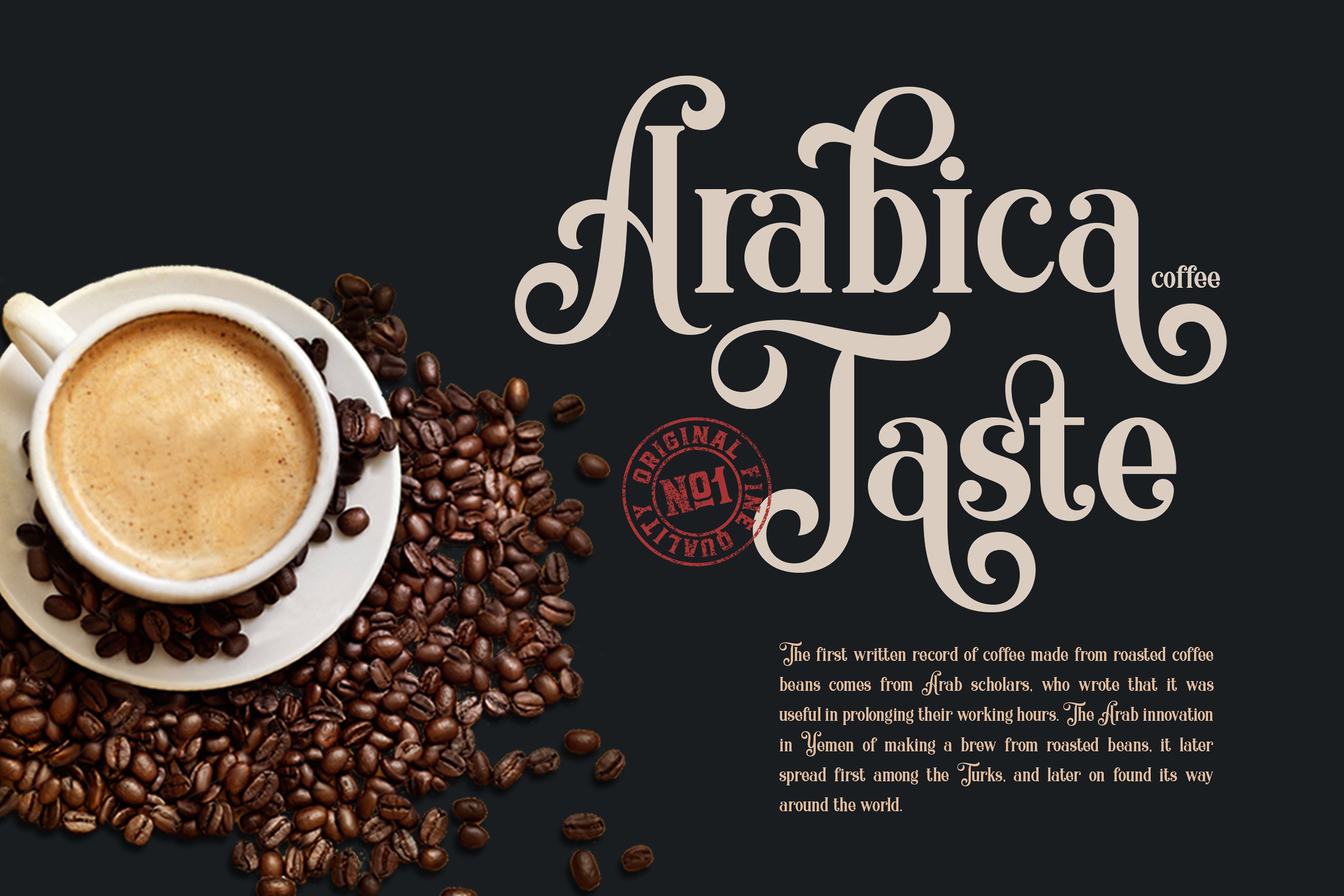
Quiska Unique
Quiska Unique Font
Quiska is a unique serif font, I combine a unique capital letter and add some kind of alternative character with a beautiful swash, Quiska have 300 more glyphs. You can use it as a logo, badge, typography art, packaging, headline, poster, t-shirt/apparel, greeting card, and wedding invitation. You can mix and match Quiska with a bunch of alternative characters to fit your project.